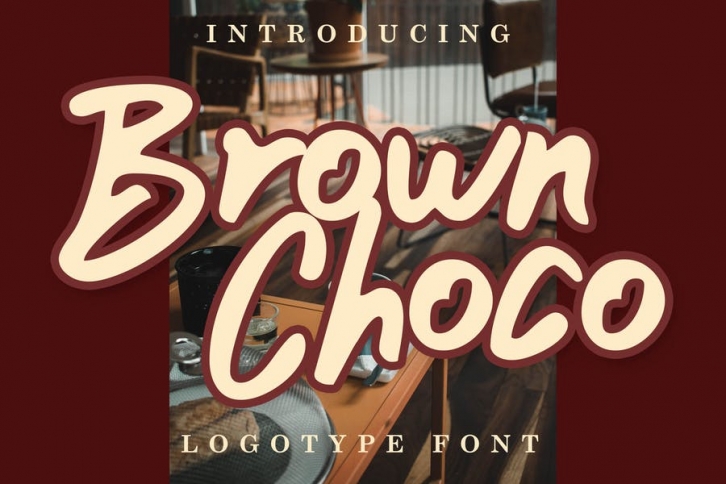
Brown Choco Logo Font Download
Brown Choco is unique logotype font. This font is perfect for logo, quote, poster, playful lettering, for clothing, or any design projects.